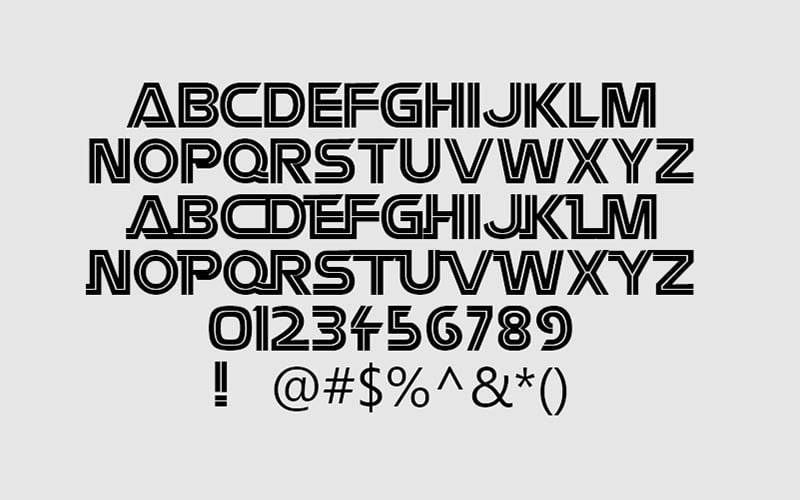
Display Logo Typeface
Battlestar Galactica Font is a free display typeface. This typeface refers to the font used in the logo of Battlestar Galactica, which is an American science fiction series and can be found on anchor fonts.
The free typeface has come in only one weight. The logo font used in Battlestar Galactica is similar to the font called Beatstar. This standard font is only available in capital letters.
You can openly use this fine-quality font for various purposes such as social media posters, movie posters, science fiction film titles, banners, branding logo designs, printing t-shirts, and more wherever you want.
So, we say that it’s the best tool to make fabulous designs just because of its elegant lining texture. That’ will be easily adjustable for printing designs as well as large display screen purposes.
Battlestar Galactica Font
Further, The inner part of every letter seems like it’s with single slim lines that make it different from the others. Therefore, the important thing is that the designers can understand it easily.
In Regular days, having unique amazing fonts is not a big deal. But most importantly, the designer can improve the design. This display font provides a lot of support for them.